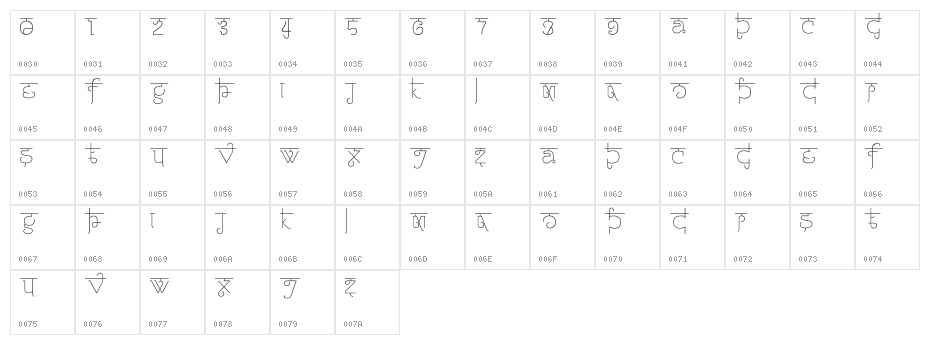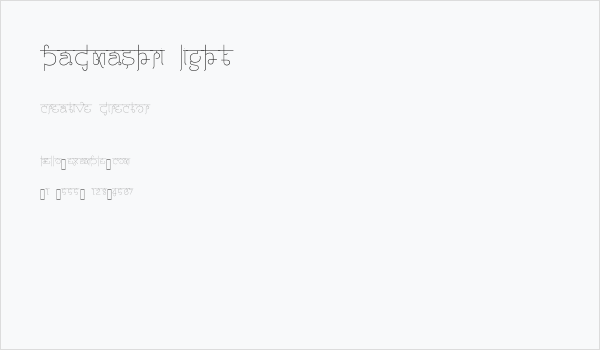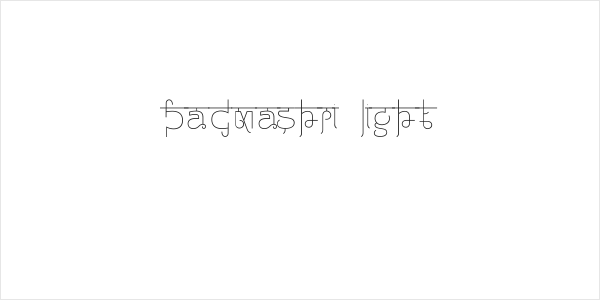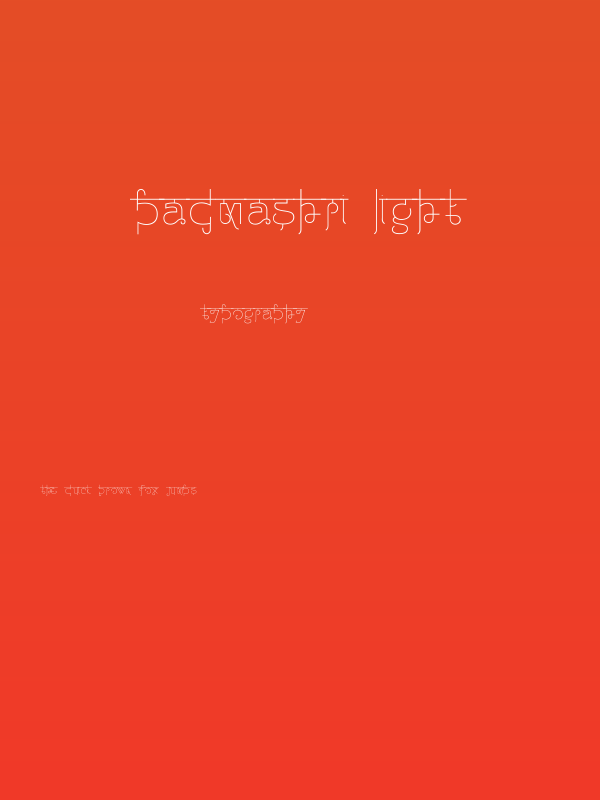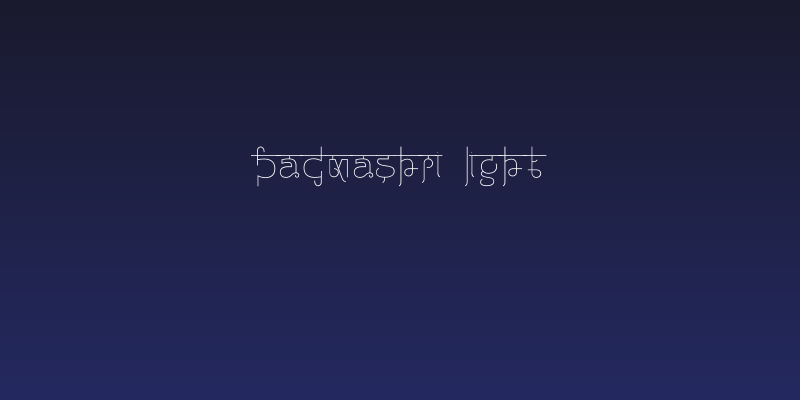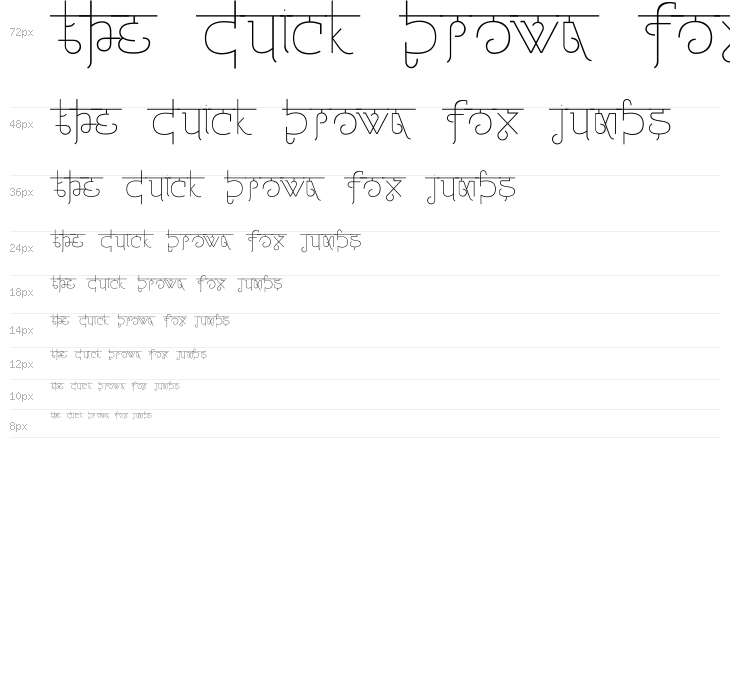
Padmashri Light Font
Padmashri Light Description
This font features a unique and artistic design with a blend of modern and traditional elements. The characters are crafted with a delicate, thin line weight, giving them a light and airy appearance. Each letter is adorned with subtle curves and flourishes, adding a touch of elegance and sophistication. The font maintains a consistent baseline, with ascenders and descenders that extend gracefully, creating a harmonious balance. The numerals and special characters follow the same stylistic approach, ensuring a cohesive look across all elements. This font is ideal for projects that require a distinctive and refined aesthetic.
| Proposed Projects | Ideal for wedding invitations, elegant branding, artistic posters, and sophisticated editorial design. |